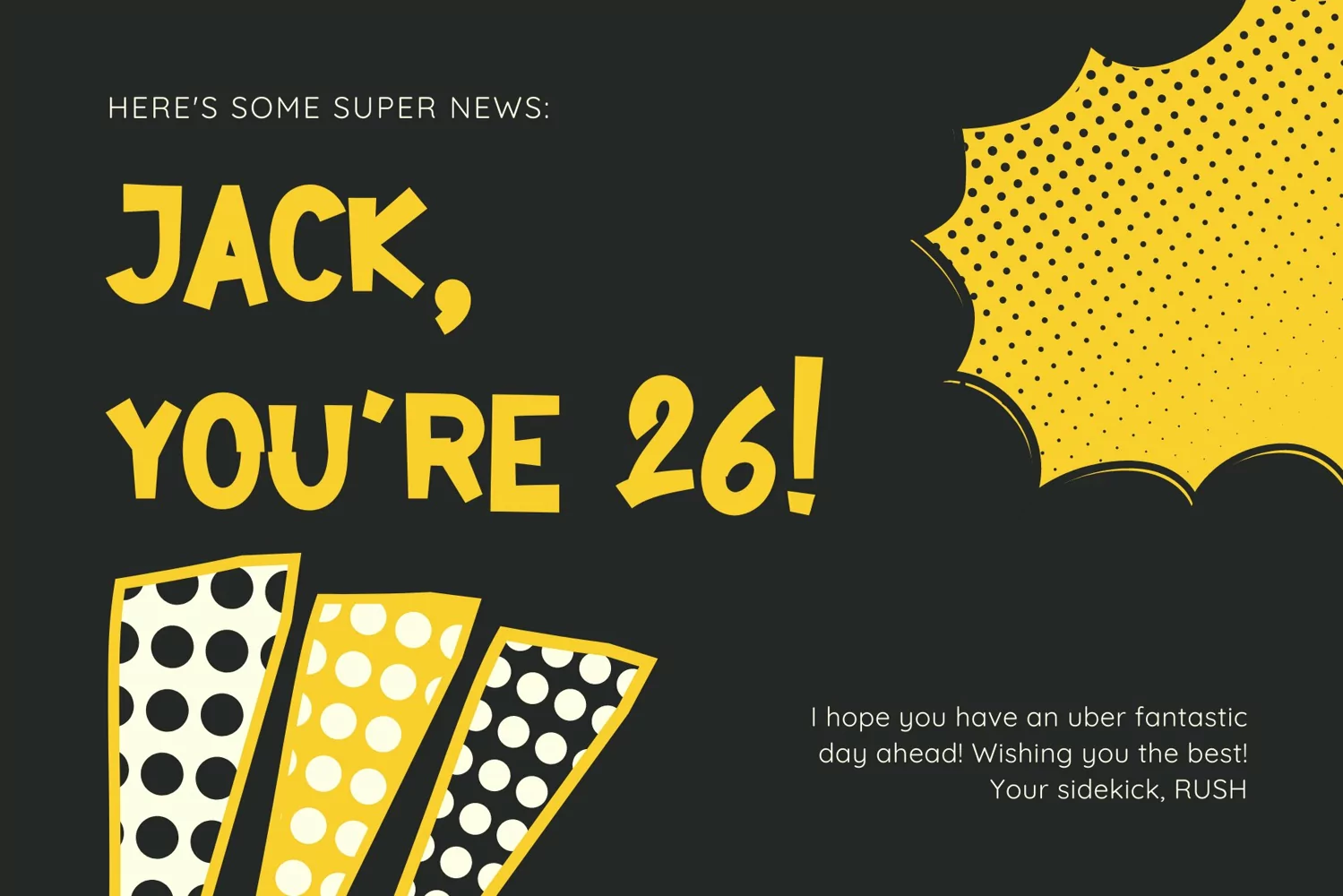
Cartoon Town is a cute display font, featuring well shape characters. Perfect for comic-cartoon themes. It will add an incredibly joyful touch to your designs. Add this beautiful font to each of your creative ideas and notice how it makes them stand out!